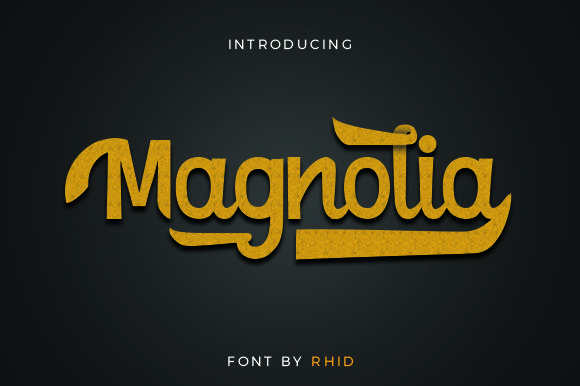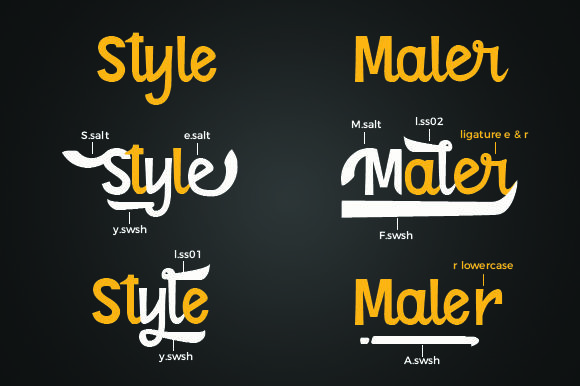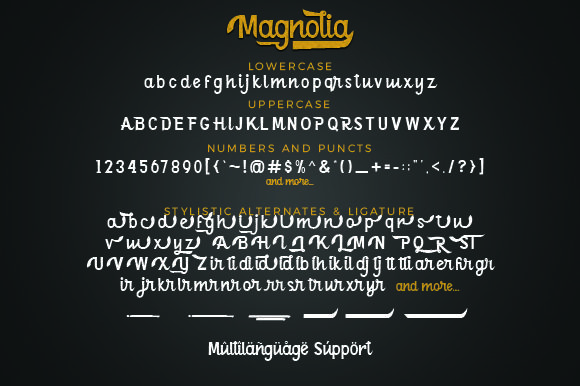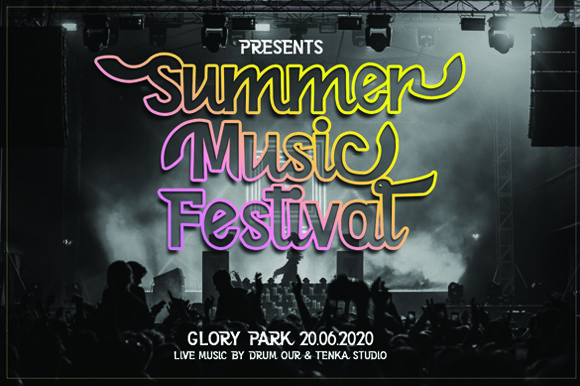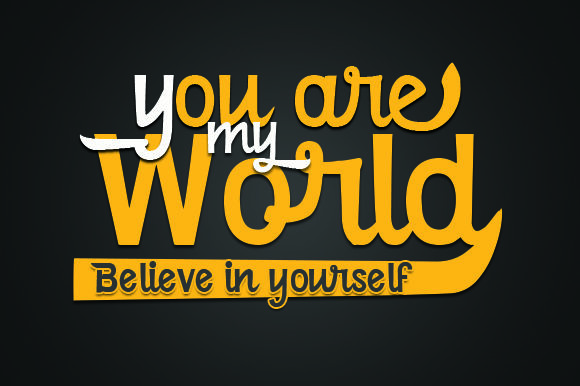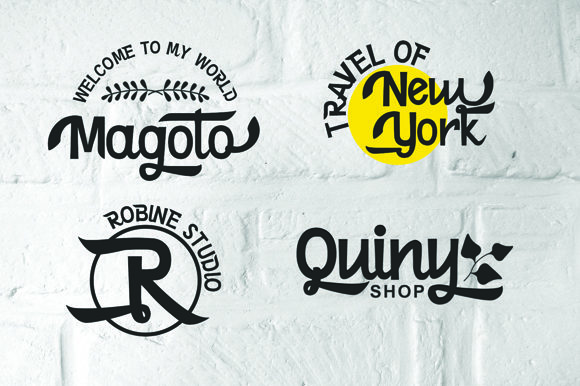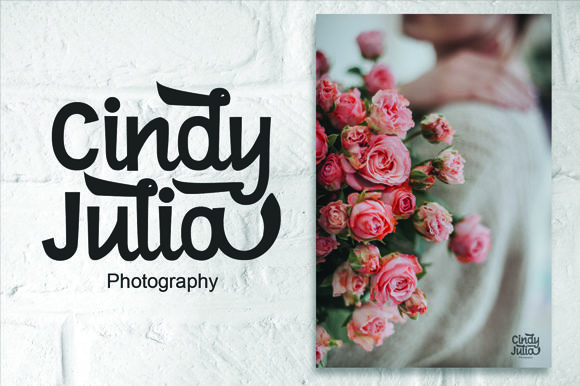
Magnolia Font
About Magnolia Font
Magnolia is a cute and friendly handwritten font. It will elevate a wide range of design projects to the highest level, be it branding, headings, wedding designs, invitations, signatures, logos, labels, and much more!